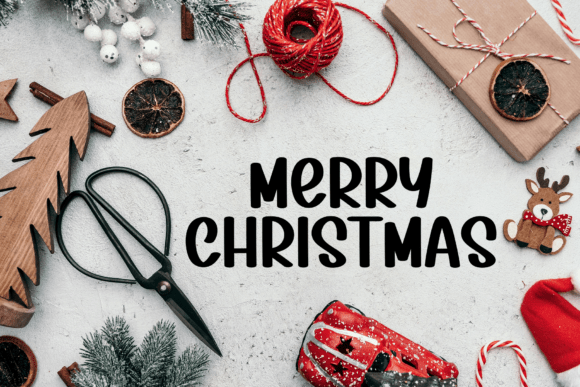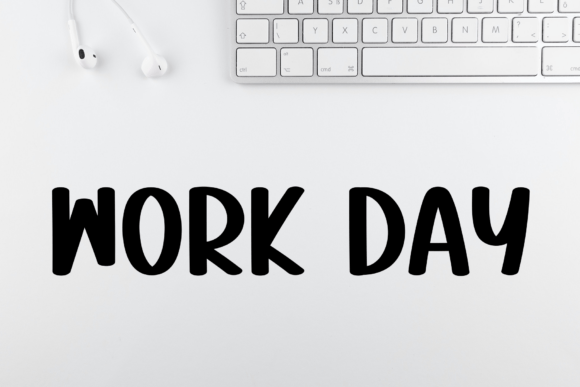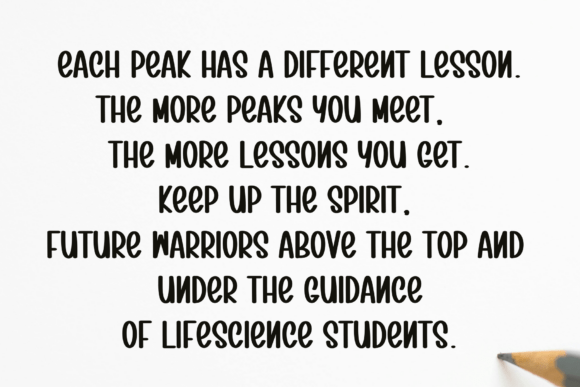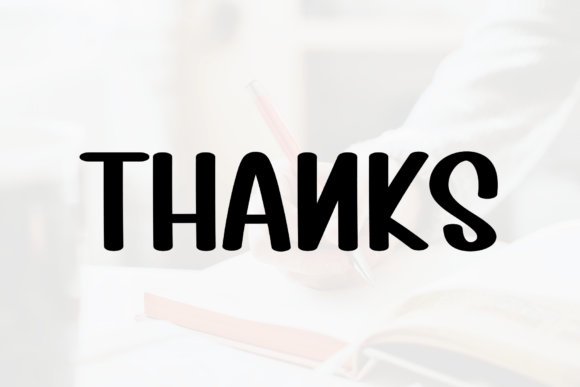
Introduction to Jumper Smart Font Font
Fonts play a crucial role in design, and the Jumper Smart Font font is a typeface that brings both character and versatility to any project. Whether you’re working on a branding project, a website, or a print design, the Jumper Smart Font font offers a unique style that can elevate your work.
Jumper Smart is a charming handwritten font filled with a sense of heartfelt perfection.
Its smooth strokes and organic lines evoke a relaxed atmosphere, making it perfect for a variety of design projects Whether used for branding, invitations or social media graphics.
Key Features of Jumper Smart Font Font
Why Choose Jumper Smart Font Font?
The Jumper Smart Font font is more than just a typeface – it’s a design tool that helps you communicate your message with style and clarity. Its unique character set and versatile design make it suitable for a wide range of applications, from elegant invitations to bold headlines.
With its carefully crafted letterforms and balanced proportions, the Jumper Smart Font font ensures readability and visual appeal across all mediums.
What makes Jumper Smart Font font special?
The Jumper Smart Font font stands out with its unique design, exceptional readability, and versatility across various design applications.